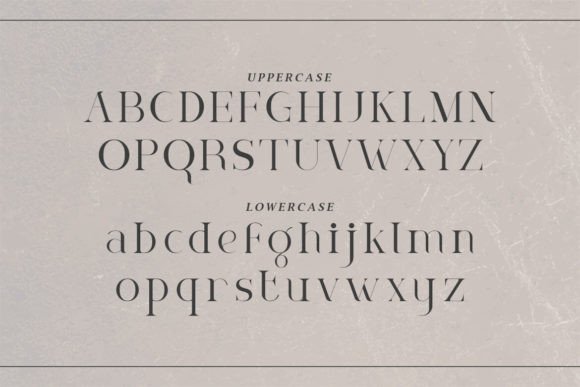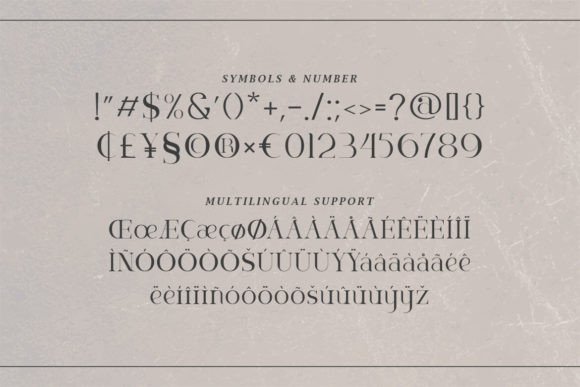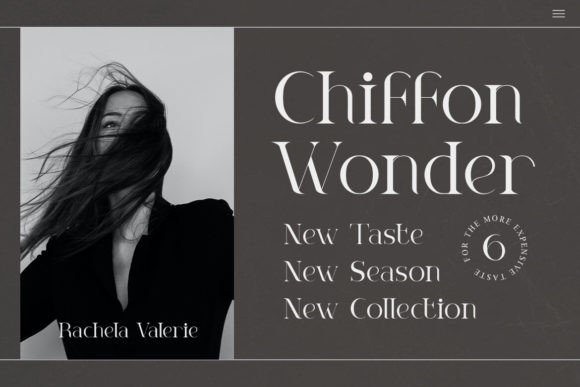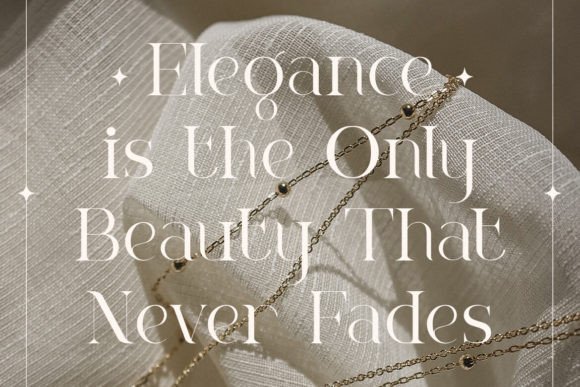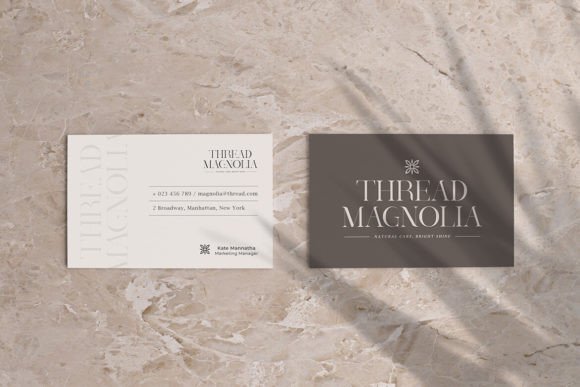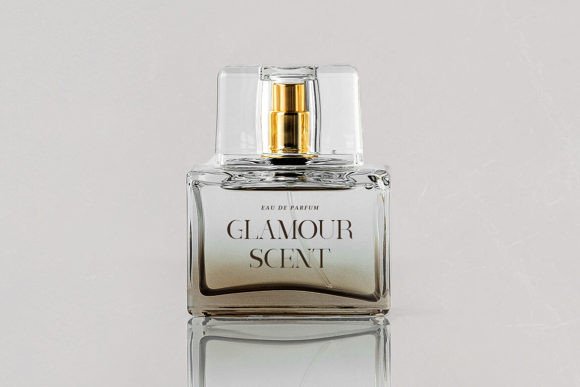
Introduction to Noge Font
Introducing “Noge” – a sharp serif typeface that exudes elegance and sophistication, perfect for adding a touch of refinement to your designs.
With its clean lines and distinct serifs, “Noge” offers versatility and clarity, making it ideal for branding, editorial layouts, signage, and more Embrace the timeless appeal of “Noge” as it effortlessly enhances your designs with its sharp and distinctive typography.